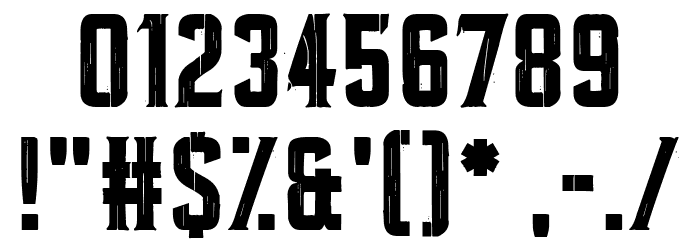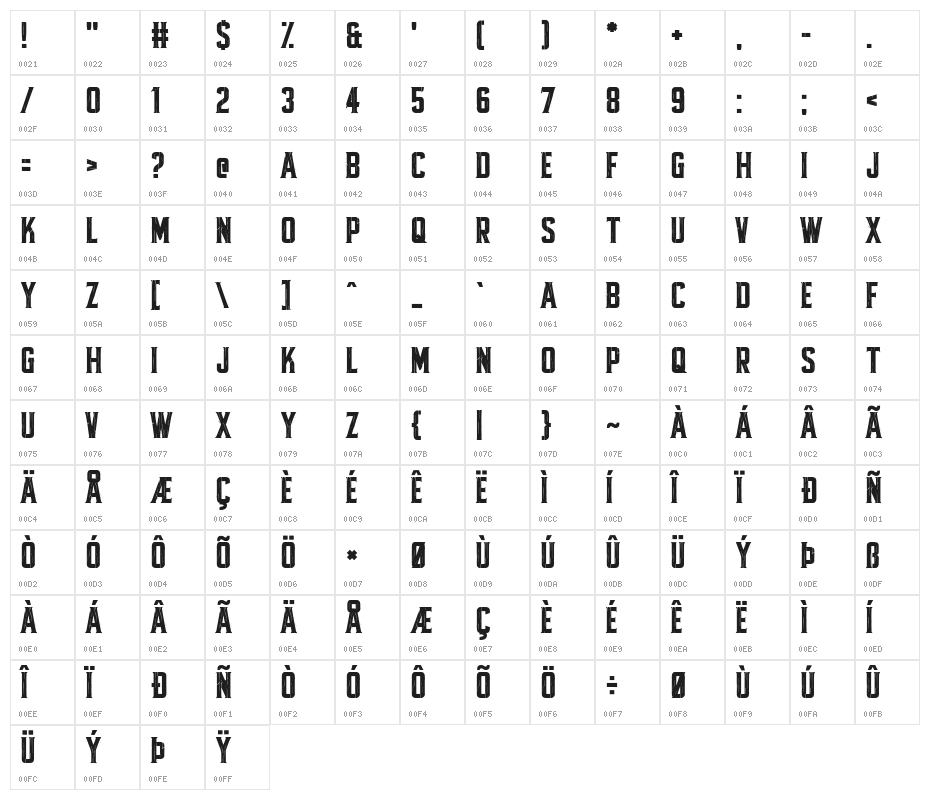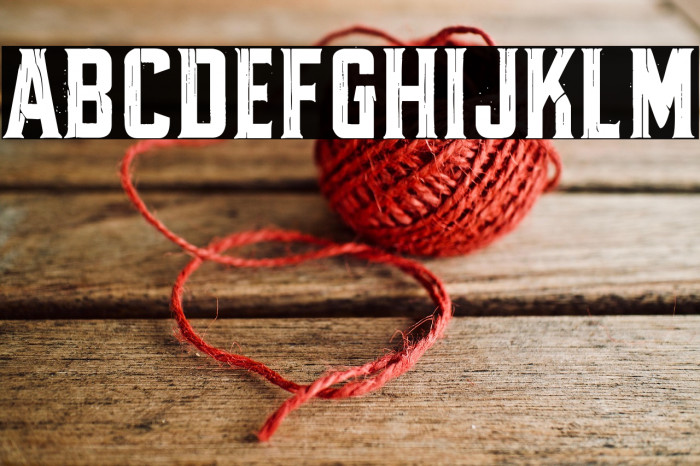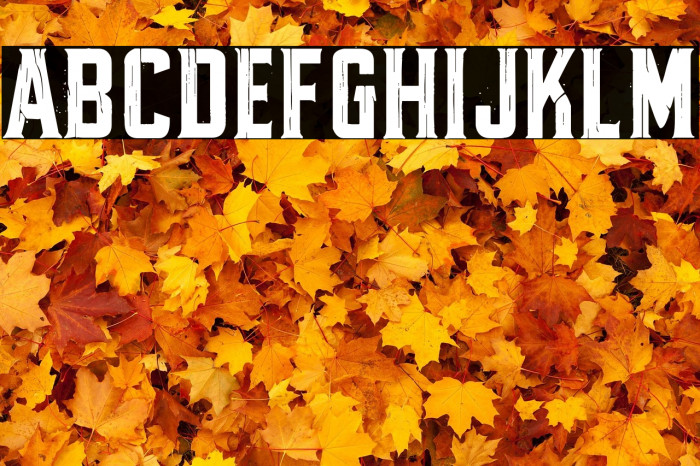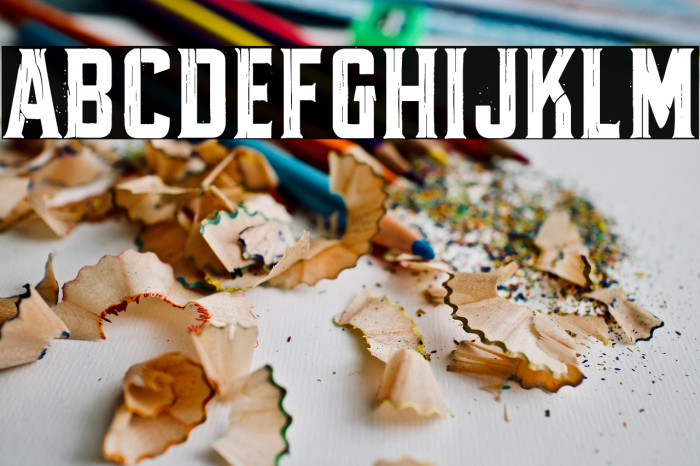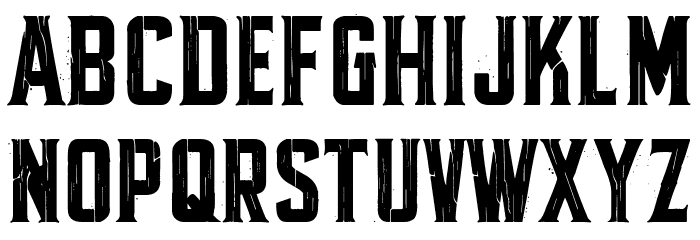
Fractured Fir Font
Fractured Fir Description
This font features a bold, distressed style with a rugged, textured appearance that gives it a worn, vintage feel. The characters are all uppercase with a consistent height, and the design includes irregular, jagged edges that contribute to its fractured look. The numbers and special characters maintain the same distressed aesthetic, creating a cohesive and impactful visual presence. This font is ideal for projects that require a strong, eye-catching display with a touch of grunge or industrial flair.
| Overall Style | Vintage, Grunge |
| Proposed Projects | Ideal for posters, album covers, branding for edgy or industrial-themed products, and any design requiring a strong, vintage aesthetic. |